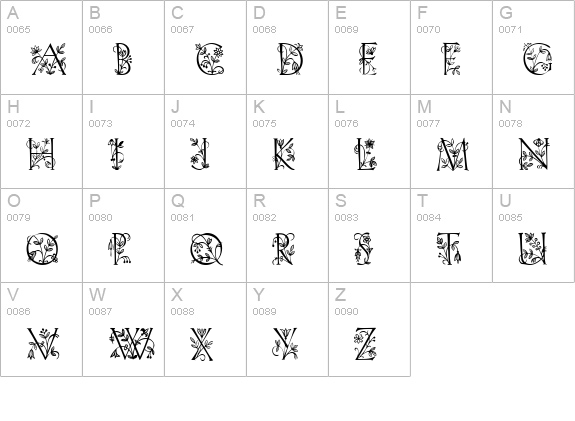
FleurDisplayCapsSSi Medium is a balanced, medium-weight variant in the FleurDisplayCapsSSi typeface family \xE2\x80\x94 well suited to sub-headlines, navigation, and balanced editorial work.
FleurDisplayCapsSSi Medium font is a sophisticated and elegant display typeface that exudes a sense of charm and grace. With its refined letterforms and stylish capitalization, this font is perfect for adding a touch of luxury to any design project. The Medium weight strikes a perfect balance between boldness and delicacy, making it versatile for various applications. The best part? FleurDisplayCapsSSi Medium font is available for free download at FontsMarket.com. Embrace the beauty and versatility of this stunning typeface without any cost, and elevate your designs with its timeless appeal. Whether you're creating invitations, branding materials, or editorial layouts, FleurDisplayCapsSSi Medium font is sure to make a lasting impression. Download it today and unlock a world of creative possibilities!